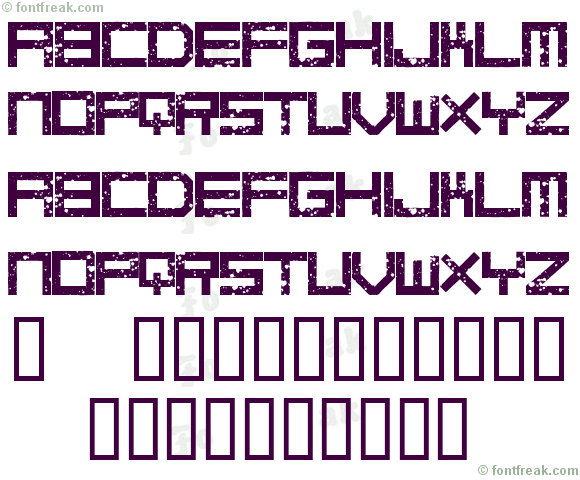
digital anarchy Regular
Digital Anarchy Regular by Chris Vile is a striking display font that captures the essence of a modern digital aesthetic. This freeware typeface features a unique design characterized by its bold, angular forms and an edgy, distressed texture that evokes a sense of rebellion and creativity. The stroke weight is consistent, offering a strong visual presence, while the overall spacing provides clarity and legibility, making it suitable for a variety of applications.
The digital anarchy Regular font is particularly well-suited for use in projects that require a contemporary and unconventional edge. It shines in creative contexts such as music album covers, urban-themed posters, and digital media graphics. Additionally, it can be effectively utilized for branding materials for tech startups or art galleries, where a bold statement is essential. The font's aesthetic appeals to graphic designers seeking to express a modern, avant-garde style, as well as small business owners looking to make their marketing materials stand out.
Targeted towards graphic designers, content creators, and small business owners, this font offers a unique blend of style and functionality. Its distinctive look not only captures attention but also conveys a message of innovation and individuality.
In conclusion, the digital anarchy Regular font free download is a standout choice for anyone looking to infuse their designs with a sense of modernity and defiance. Its unique visual characteristics and versatility make it an essential addition to any designer's toolkit, ensuring that projects maintain a fresh and dynamic appeal. Whether for digital or print applications, this font is sure to leave a lasting impression.